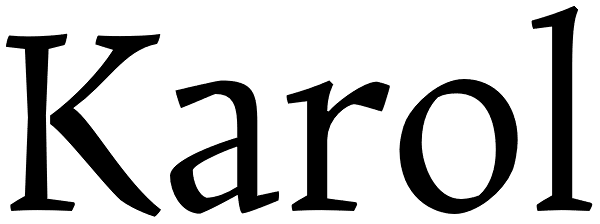
Karol
Karol was designed in 2011 as a project in the MA in Advanced Typography from EINA/UAB, in Barcelona. It was born as text typeface inspired by the work of East European type designers. Two years later, Karol is ready for public release, in a...